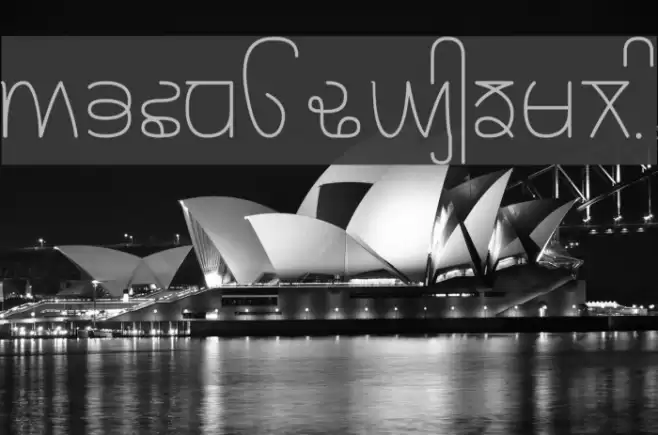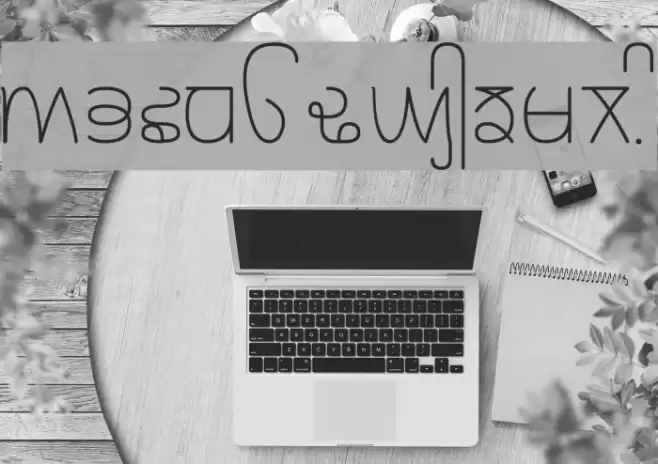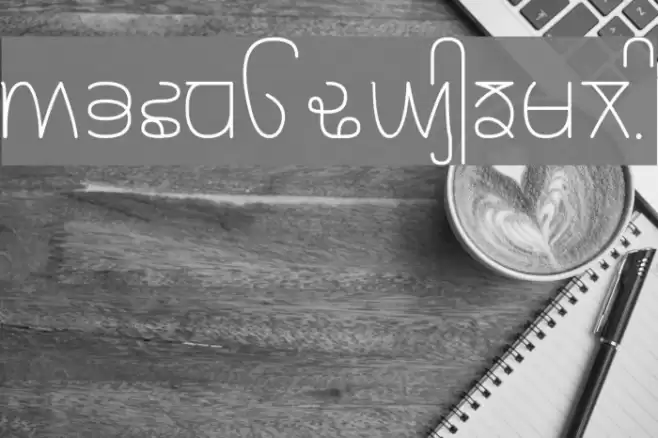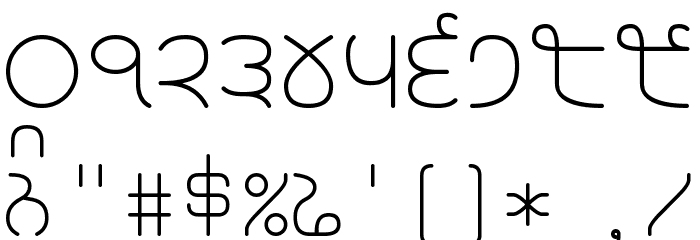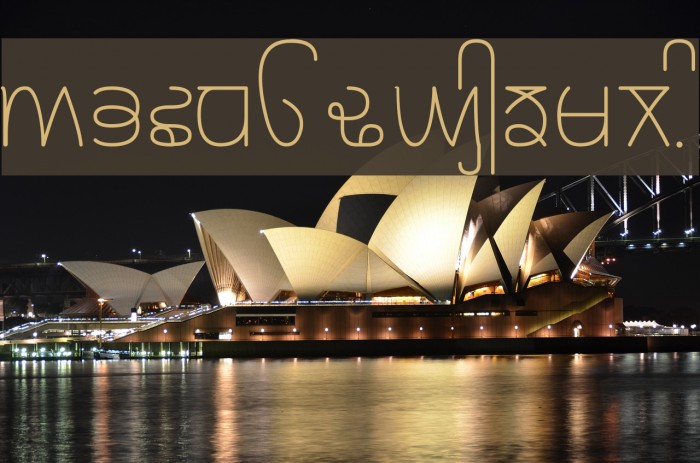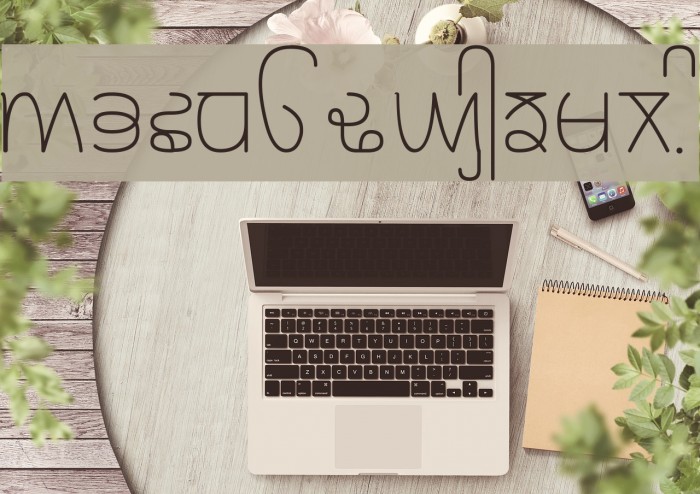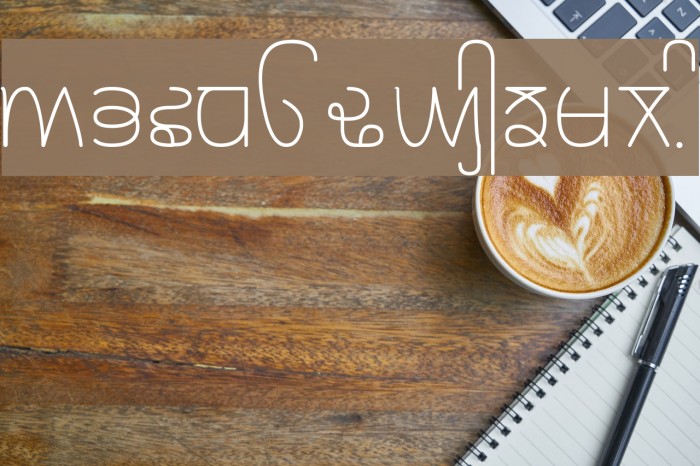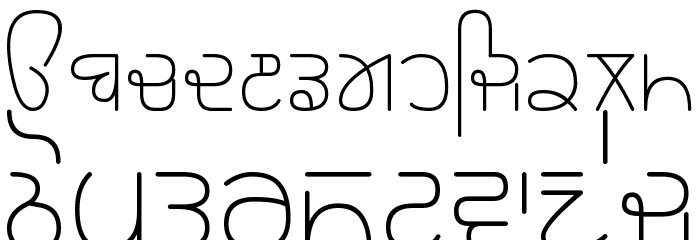
Rupe Extra Light Font
Rupe Extra Light Description
This font features a unique and artistic design, characterized by its flowing, interconnected strokes and a sense of movement. The letters are crafted with an elegant curvature, giving them a modern and sophisticated appearance. The font maintains a consistent line weight throughout, contributing to its clean and polished look. Its distinctive style makes it suitable for creative and expressive projects, where a touch of elegance and flair is desired. The characters are well-spaced, ensuring readability while maintaining their artistic integrity.
An artistic and elegant font with flowing, interconnected strokes from Asian fonts.
- Proposed Projects: Ideal for creative projects such as branding, invitations, and artistic posters.
- Use Case: Logos, Artistic projects, Invitations